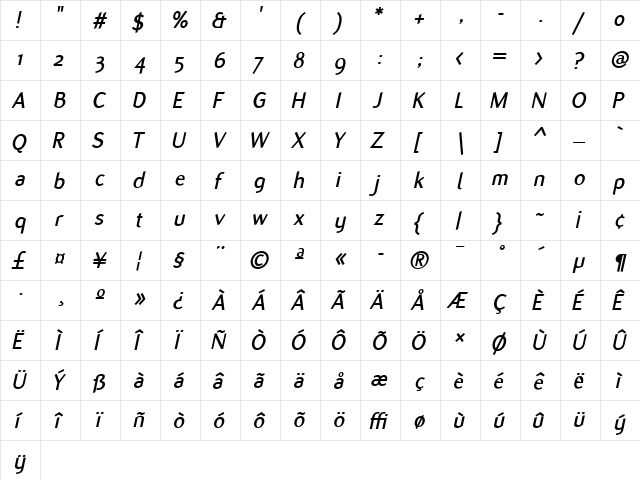
Flux Bold Italic
Design Context for Flux Typeface
Flux offers clean, dependable letterforms without strong stylistic allegiance, making it a practical choice for designers who need flexibility. The slanted form adds forward momentum and visual energy. The heavy weight commands attention and anchors typographic hierarchies.
Pro Tip: Try Flux for annotation and caption copy alongside an upright companion — the contrast in angle creates a dynamic but ordered typographic system.